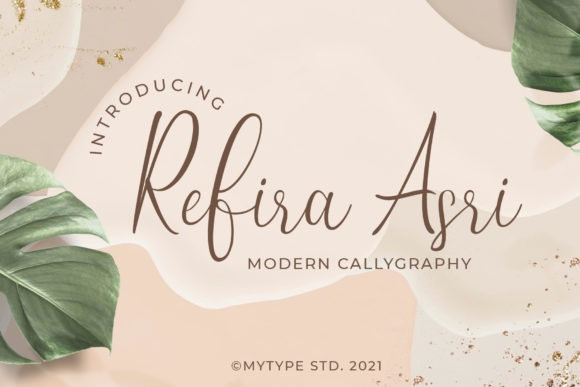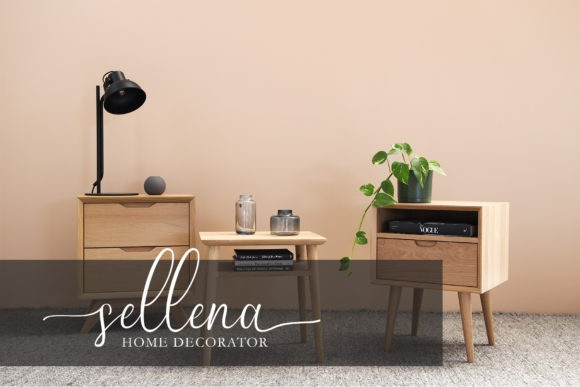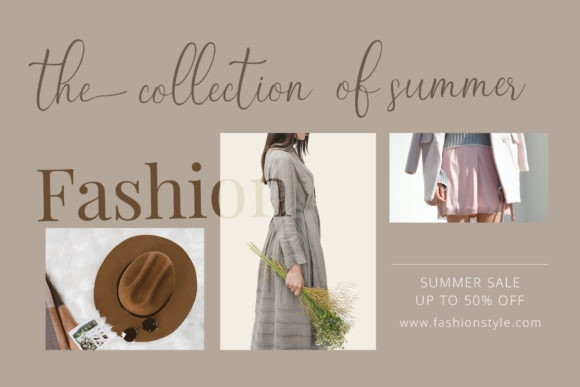
Refira Asri Font
Refira Asri is a chic, refined script font that emanates sophistication and elegance. Its stylish alternates and ligatures make this font the perfect match for any project.